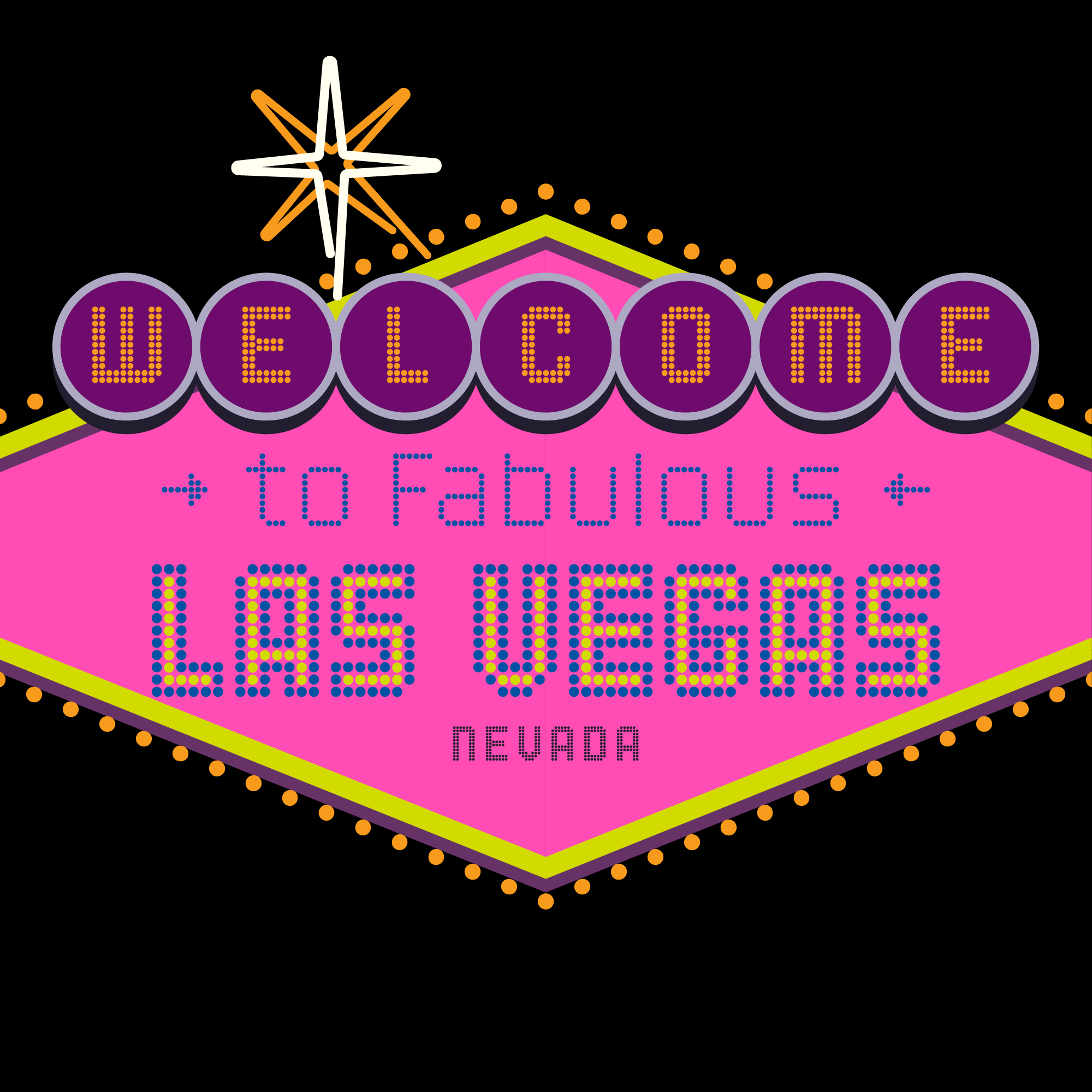
Delve Fonts is excited to announce the release of Baudot™ by the world renowned photographer (and ex-designer) François Robert.
Originally available in the 1970s as dry transfer type, this unique design was inspired by the bright lights of Las Vegas and graced magazine covers, posters, albums, and books for over a decade before being sidelined in the switch to digital technology in the '80s.
Robert collaborated with Delve Fonts to produce a remixed version of his design for the 21st century. The resulting type family “Baudot” [boˈdo], a nod to Émile Baudot and his 1872 invention of the ASCII precursor “Baudot Code”, is comprised of three weights: Light, Regular, and Bold, plus two styles for color layering: Baudot Pop Open and Baudot Pop Fill.
Although it is a grid-based design, Baudot strategically strays from that rigidity using a second, offset grid in places to reduce gaps, gaining a more accurate representation of design intent. As one would expect of today’s fonts, Baudot has some handy OpenType features and a broad glyph repertoire supporting over 225 languages, including Vietnamese, Greek, plus Cyrillic script.
Baudot is certain to add some dazzle and delight to any headline or drop cap treatment, especially with the layering option employed for a flashy chromatic effect.